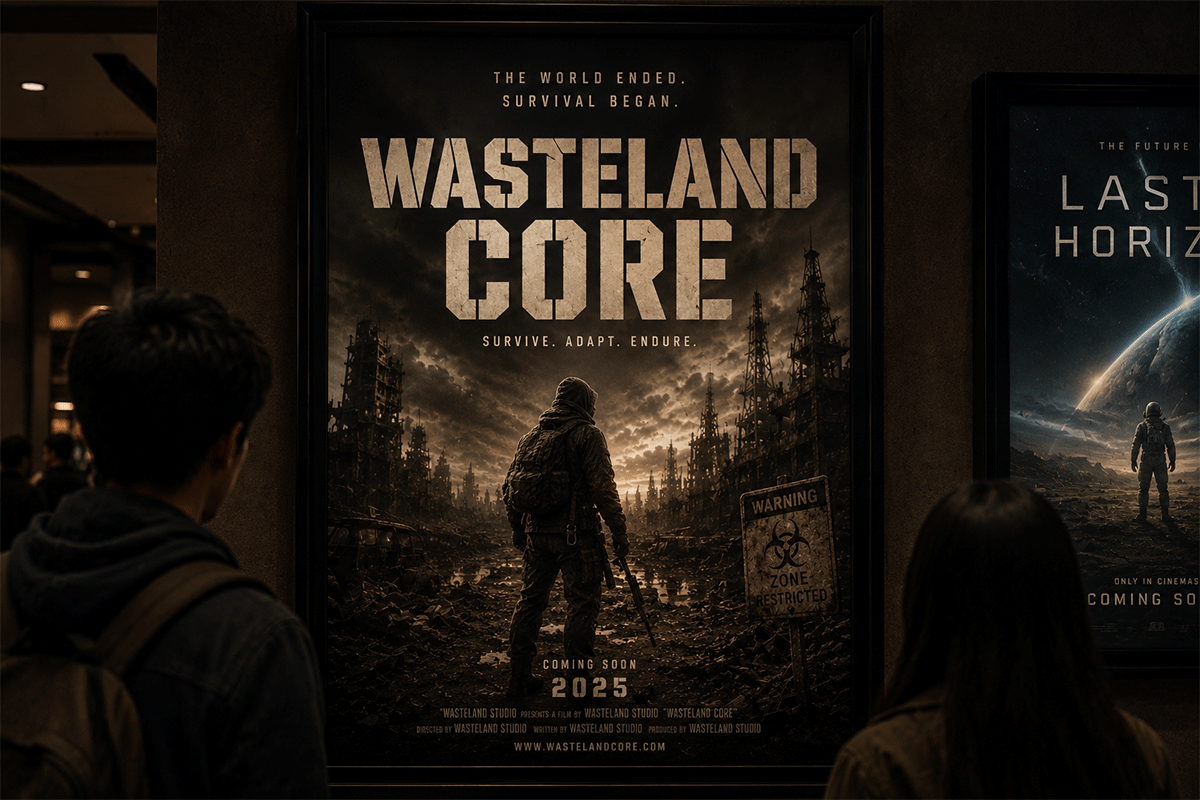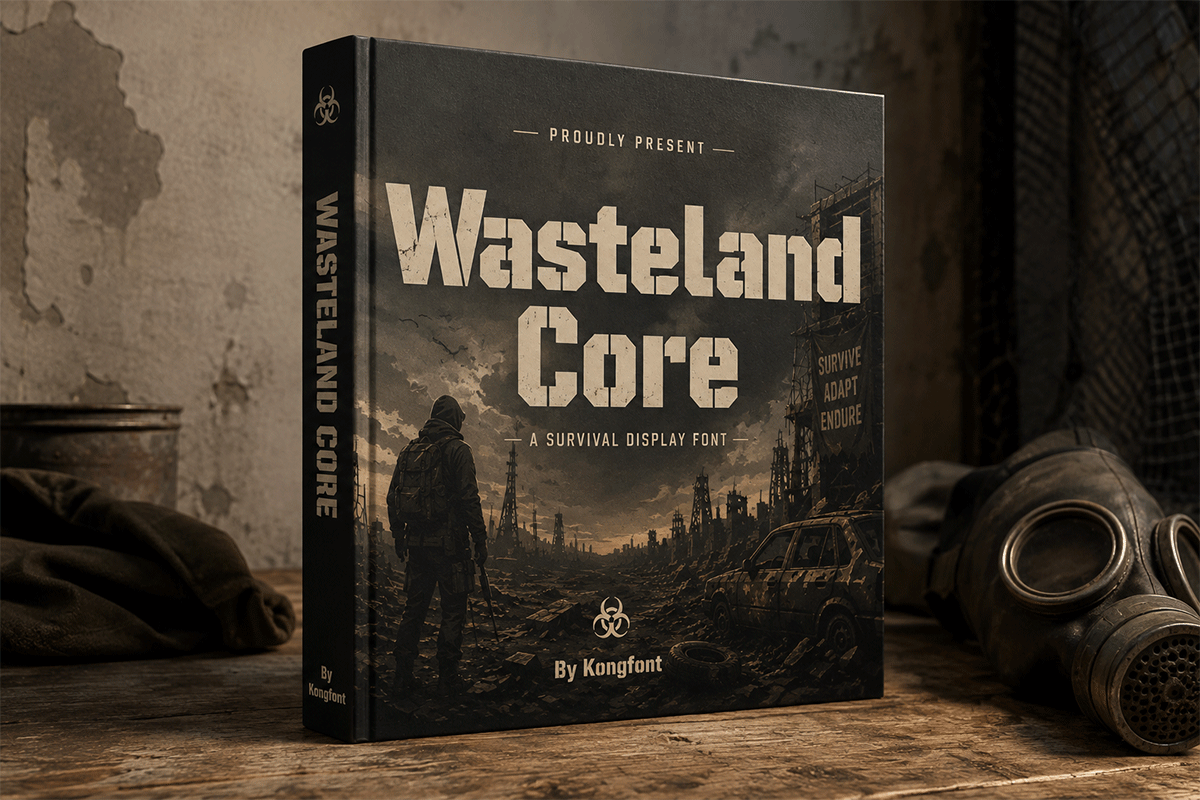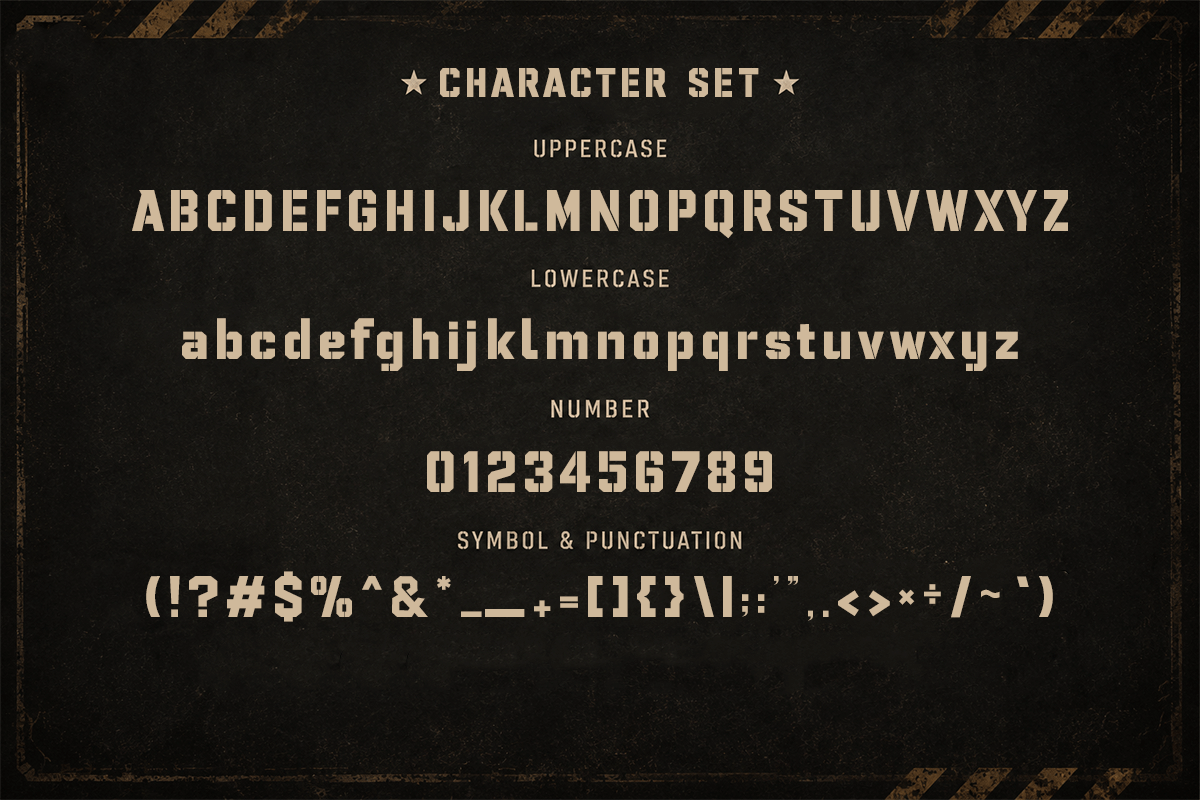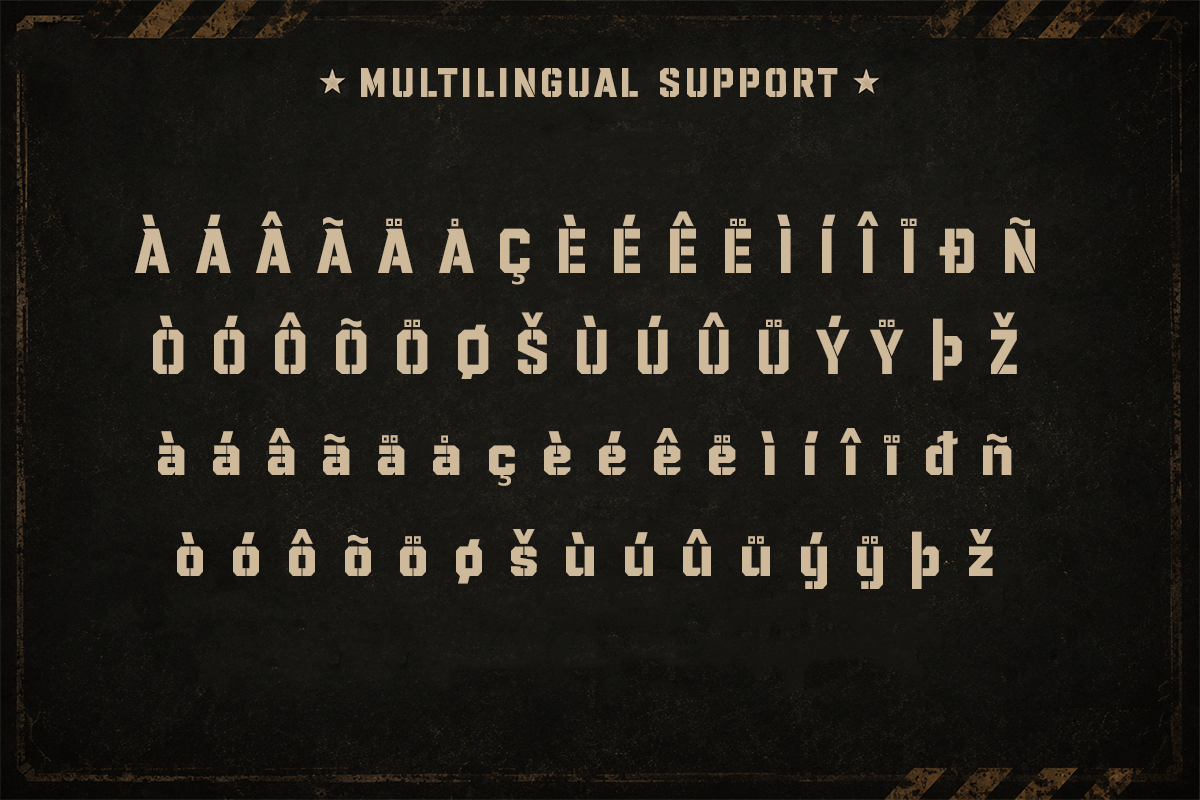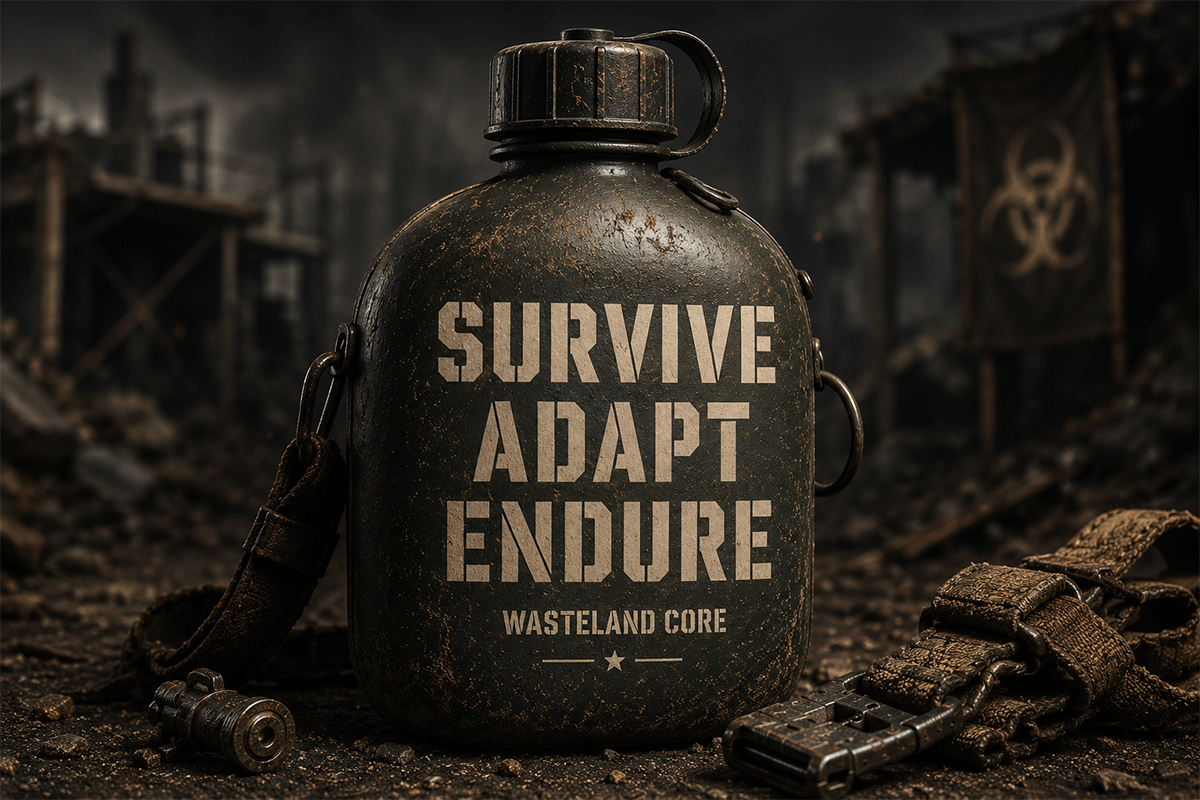
Wasteland Core A Modern Survival Display Font Core is a bold survival display font inspired by post-apocalyptic, industrial, military, and dystopian themes. Its heavy block structure, sharp cuts, and rugged letterforms create a strong visual impact, giving the font a sense of power, danger, and resilience.
Designed to stand out as a main title font, Wasteland Core A Modern Survival Display Font Core is perfect for projects that need a bold and dramatic look. The solid geometric shapes make it easy to read, while the distressed and tactical feel adds a raw, intense atmosphere.
This font is ideal for survival game titles, movie posters, esport logos, military branding, t-shirt designs, album covers, YouTube thumbnails, book covers, and apocalypse-themed visuals.